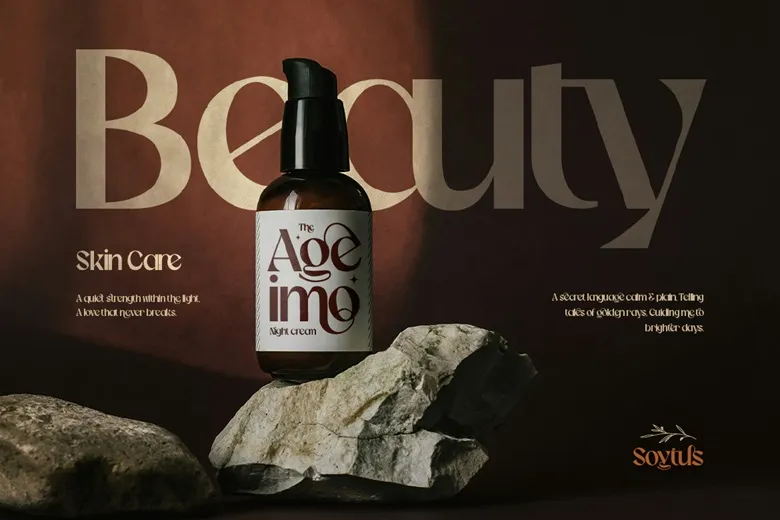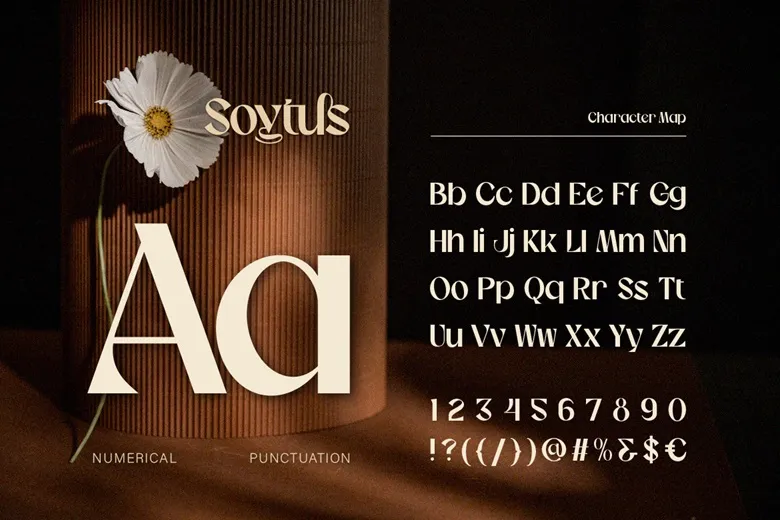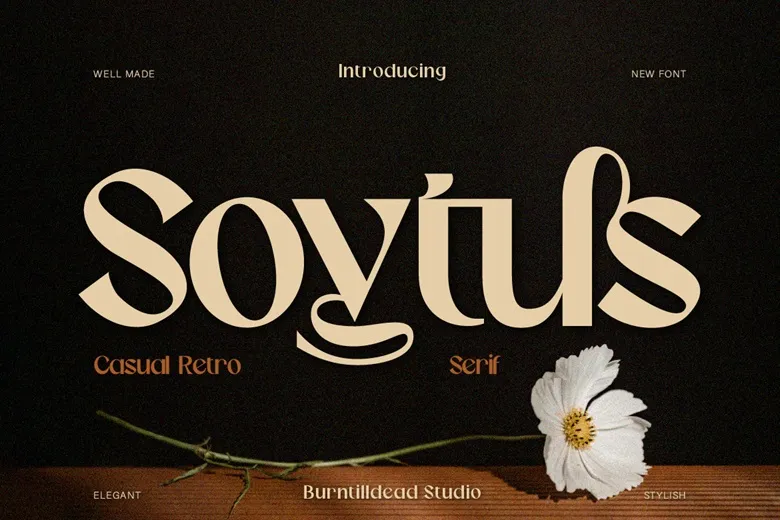
The Perfect Blend: Soytus Font
When it comes to selecting a typeface that exudes elegance while maintaining a retro charm, the Soytus font stands out as a stellar choice. This casual retro serif font seamlessly combines traditional and modern design aesthetics, making it a versatile tool for designers and branding professionals alike.
Soytus Serif Font
Features of Soytus Font
1. Elegant and Retro Appeal:
Soytus is designed to blend vintage inspiration with contemporary style. Its neat lines and soft curves create a balanced look that is both timeless and fresh, appealing to projects seeking a touch of nostalgia without compromising on sophistication.
2. Thoughtful Ligatures for Professionalism:
One of the standout features of Soytus is its carefully crafted ligatures. These subtle details enhance the overall aesthetic of the font, adding a layer of professionalism and grace that sets it apart from more casual or overly simplistic typefaces.
3. Multilingual Support:
Soytus comes equipped with multilingual language support, including basic European accents. This feature makes it an excellent choice for global projects and ensures seamless communication across diverse audiences.
Applications of Soytus Font
1. Branding and Logo Design:
Soytus’s elegant yet approachable design makes it perfect for branding and logo projects. Luxury brands, jewelry lines, and upscale products can leverage its sophistication to make a lasting impression.
2. Editorial and Poster Design:
The retro-modern vibe of Soytus fits beautifully in editorial layouts and poster designs. Whether you’re designing for print or digital platforms, this font adds character and visual interest to headlines and body text alike.
3. Web and Digital Design:
Web designers can incorporate Soytus into websites requiring a touch of elegance. It’s particularly effective for portfolios, blogs, and online stores catering to fashion, art, or luxury goods.
4. Luxury Branding:
From high-end packaging to premium event invitations, Soytus elevates any project demanding a sense of refinement and class.
Why Choose Soytus?
1. Versatility:
Soytus adapts effortlessly to a range of contexts. Whether you need a font for professional branding, artistic expression, or casual applications, it’s a reliable choice.
2. Aesthetic Harmony:
The soft curves and sharp details of Soytus create a harmonious design that captures attention without overwhelming the viewer. This balance is key to effective typography.
3. Accessibility:
Final Thoughts
In an era where typography plays a pivotal role in conveying brand identity and aesthetic values, Soytus font emerges as a dependable and stylish option. Its retro elegance, multilingual capability, and professional ligatures make it an indispensable tool for designers aiming to create impactful, sophisticated projects. Whether you’re crafting a luxury brand logo, designing a sleek website, or producing compelling editorial content, Soytus delivers both style and substance.